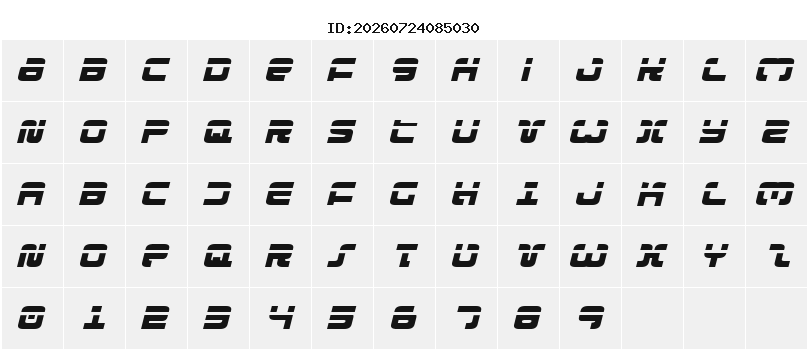
Exedore Laser Italic Preview
• Font Name: Exedore Laser Italic
• Full Font Name: Exedore Laser Italic
About Exedore Laser Italic.ttf
Exedore Laser Italic.ttf is a modern, elegant sans-serif font designed for ultimate readability and visual harmony. Perfect for branding, headlines, web design, and print materials.